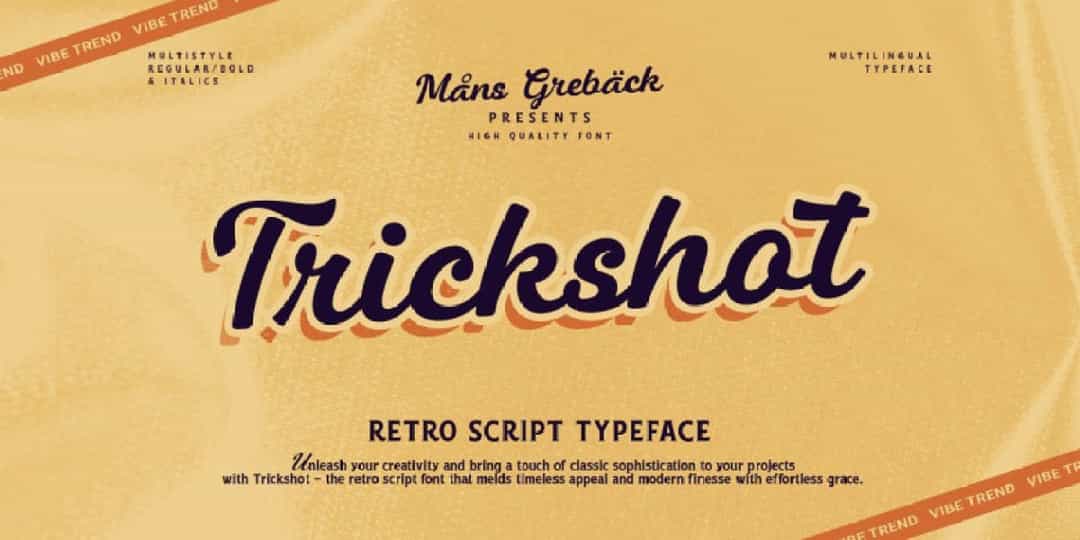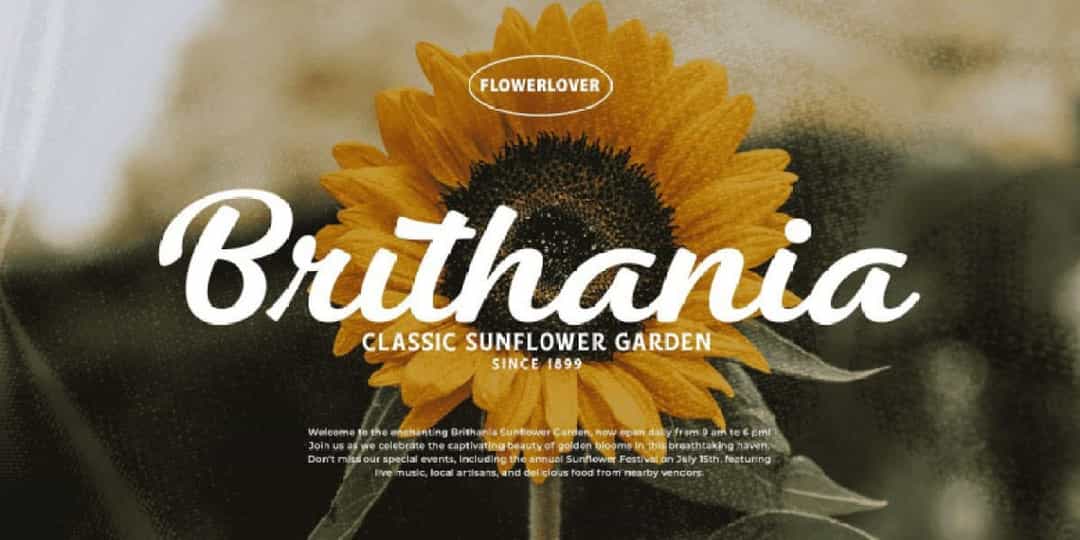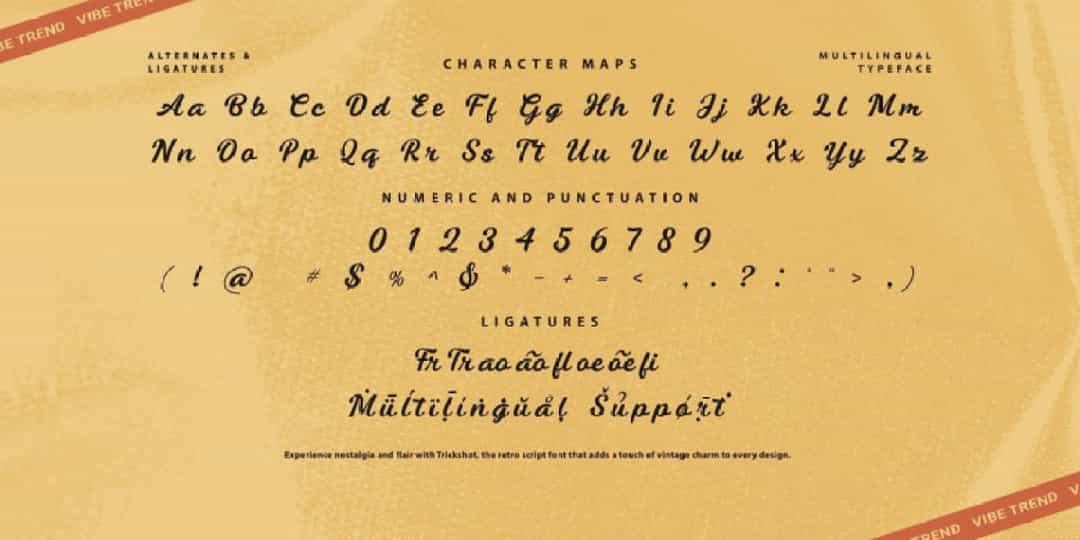
Trickshot is a retro script font which exudes rustic charm and excitement, with bold strokes of vibrant colour to evoke this feeling. This bold and vivid style makes Trickshot an excellent choice for designs which require eye-catching visuals such as logos for sports teams or outdoor event posters and national branding projects.